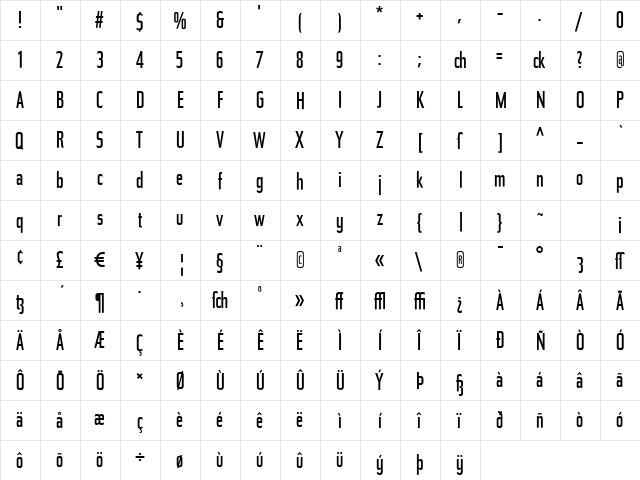
Topic Regular Font Preview
Topic Regular
Design Context for Topic Typeface
Topic offers clean, dependable letterforms without strong stylistic allegiance, making it a practical choice for designers who need flexibility.
Pro Tip: Use Topic in both headline and body roles to test its range before committing to a single application.